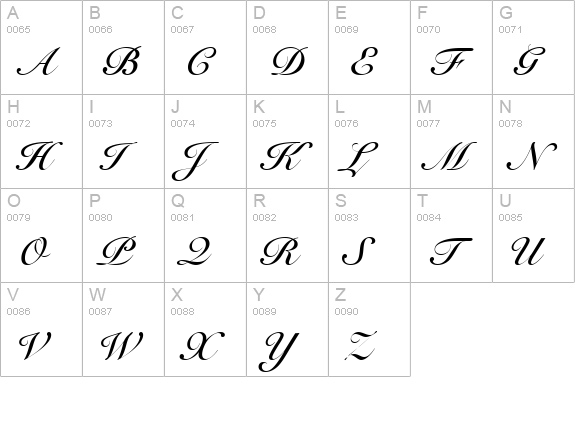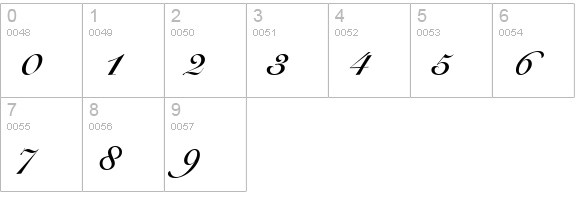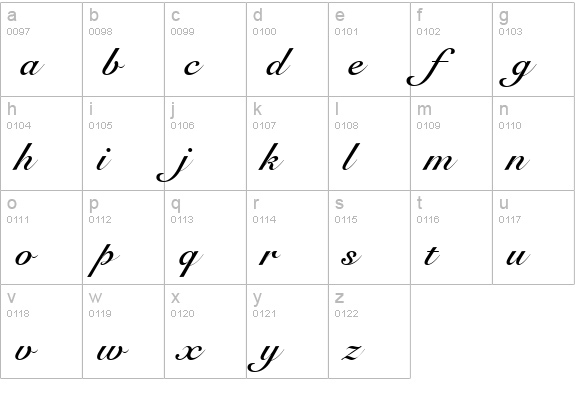
Snell Bold BT is a strong, high-contrast variant in the Snell typeface family \xE2\x80\x94 well suited to headlines, attention-grabbing titles, and strong calls-to-action.
Snell Bold BT font is a stunning display typeface that exudes elegance and power. It is the perfect choice for headlines, titles, logos, and any design project that requires a touch of sophistication. With its bold and commanding presence, Snell Bold BT demands attention and leaves a lasting impression. The strong and well-defined letterforms make a bold statement, while the subtle curves add a touch of gracefulness. This font is a harmonious blend of strength and grace, making it versatile enough to be used in various design contexts. One of the most remarkable features of Snell Bold BT font is its versatility. It can be easily paired with other fonts to create unique and captivating typography. Whether you are designing a magazine layout, a website, or a poster, this font will effortlessly add a touch of class and professionalism to your project. But what makes Snell Bold BT even more appealing is that it is available for free download at FontsMarket.com. This means that you can enhance your designs with this remarkable font without having to spend a dime. FontsMarket.com is a trusted source for high-quality fonts, and Snell Bold BT is no exception. You can easily download and install this font, and start using it in your designs right away. Don't miss out on the opportunity to elevate your design work with Snell Bold BT font. Its bold and commanding presence, combined with its free availability, makes it a must-have for any designer. So go ahead and download Snell Bold BT from FontsMarket.com and let your creativity soar.